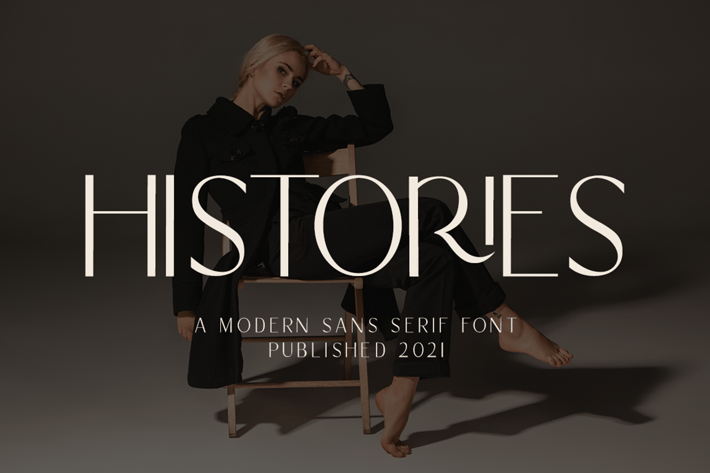
Histories - Business Font
Histories is a sans serif font. It features a minimalistic and modern look. Its versatility will apply to a wide range of crafty ideas, from letterheads and titles, to stationery.